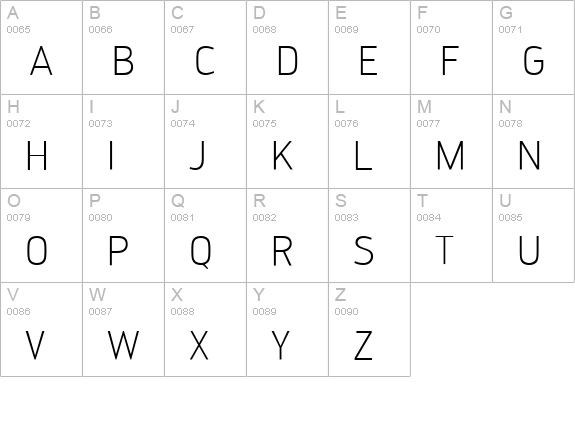
Engel Light ltd is a refined, elegant variant in the Engel typeface family \xE2\x80\x94 well suited to elegant body text, refined sub-headings, and luxury branding.
Engel Light ltd font is a sleek and sophisticated typeface that exudes elegance and modernity. With its clean lines and subtle curves, this font is perfect for adding a touch of refinement to any design project. Whether you're creating a logo, a website, or a printed piece, Engel Light ltd font will elevate your work to the next level. The best part? Engel Light ltd font is completely free to download at FontsMarket.com. This means that you can enhance your projects with this beautiful font without having to spend a dime. Don't miss out on the opportunity to add Engel Light ltd font to your font collection today.